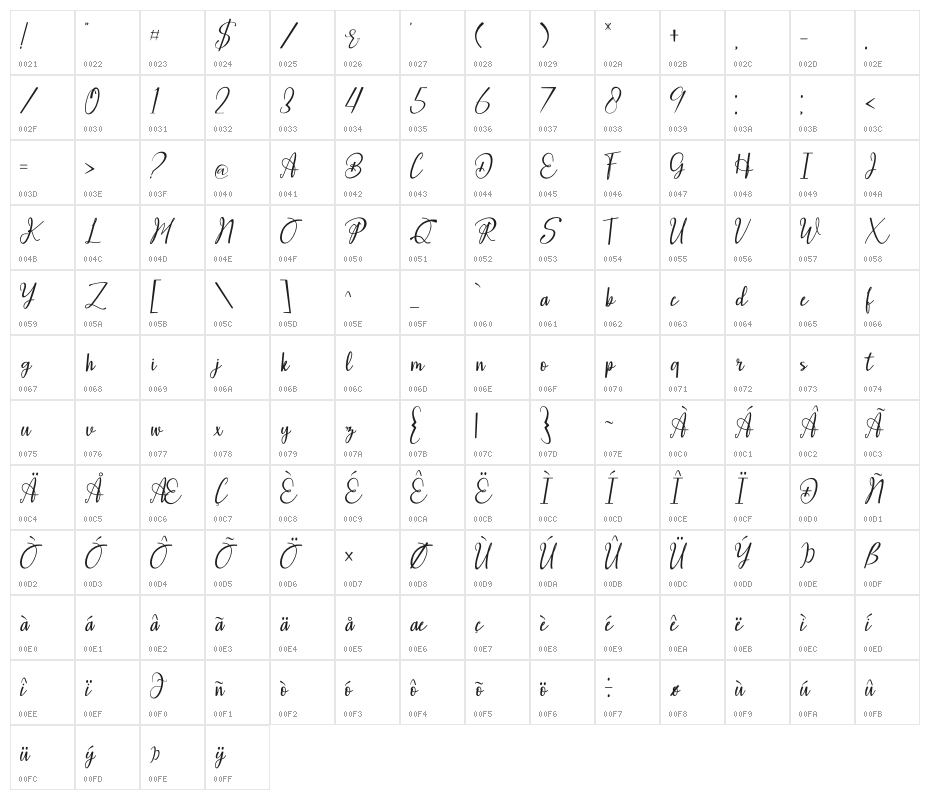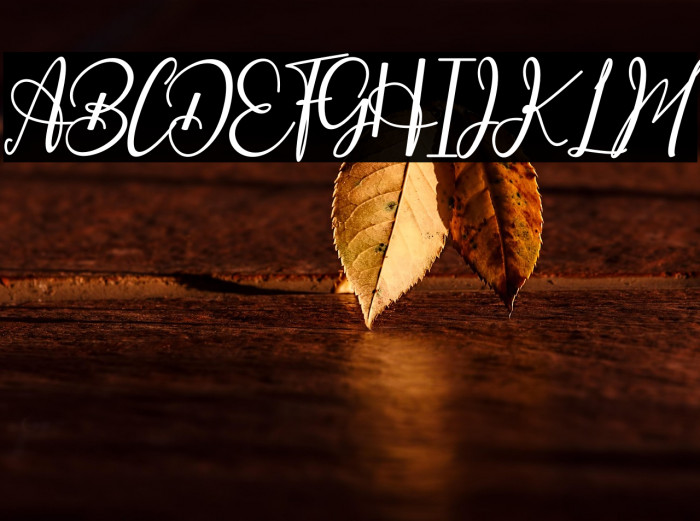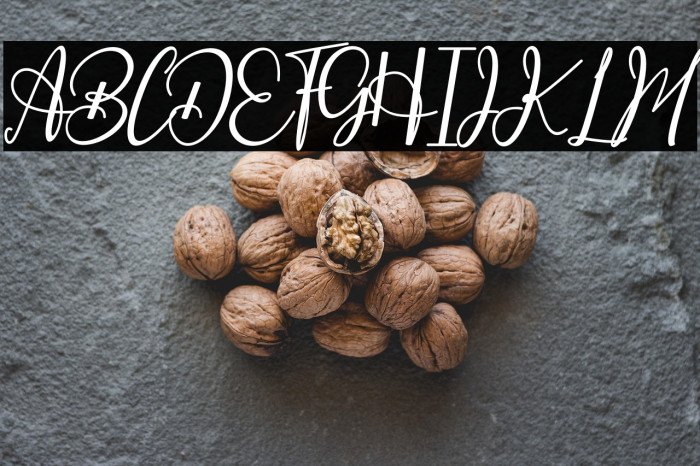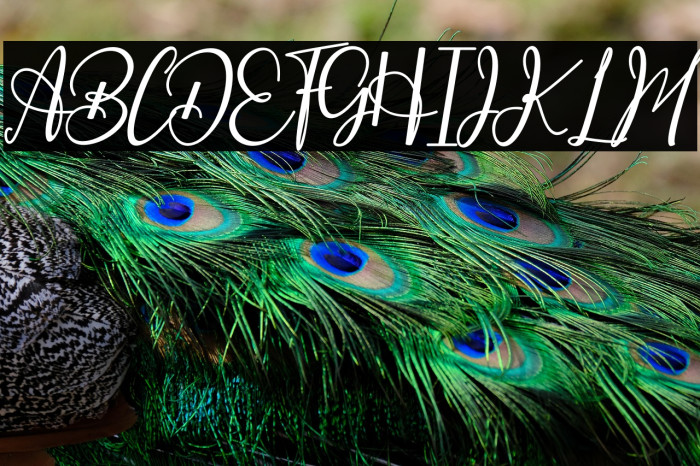
Especially Font
Especially Description
This font exudes elegance and sophistication with its flowing, cursive style. The uppercase letters are characterized by their tall, slender forms and graceful loops, while the lowercase letters maintain a consistent fluidity that enhances readability. The numerals are stylishly curved, complementing the overall aesthetic. Special characters are thoughtfully designed, adding a touch of flair. This font's delicate strokes and balanced proportions make it ideal for projects that require a touch of class and refinement.
| Overall Style | Elegant |
| Use Case | Logos, Invitations, Branding |
| Proposed Projects | Ideal for wedding invitations, elegant branding, personal stationery, and upscale packaging. |